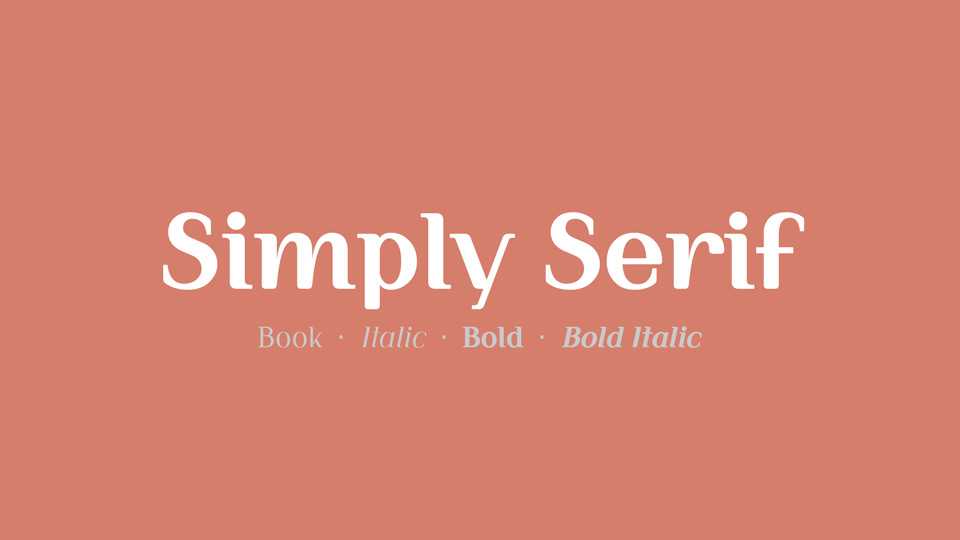
Download Simply Serif font, a warm and soft serif typeface, good looking on computer screen or web site. Simply Serif font has balanced and readable design, perfect for diverse uses in text setting, headings and logotypes.
Designer: Wojciech Kalinowski